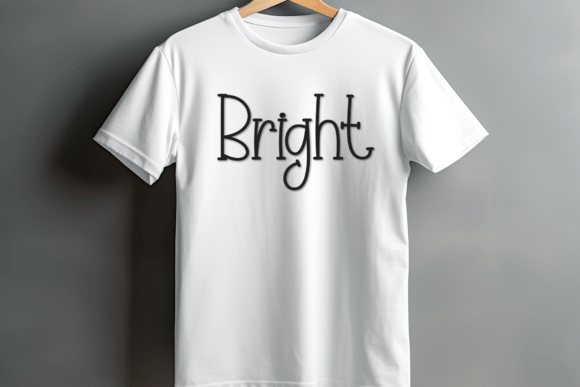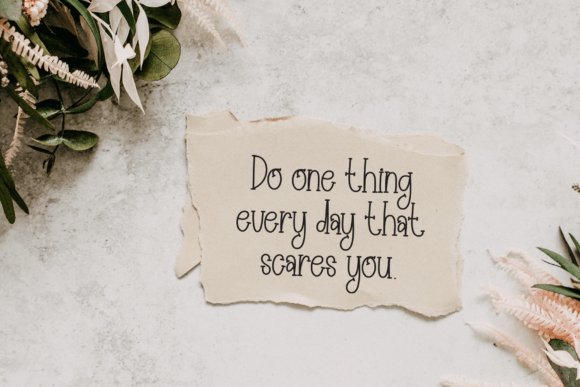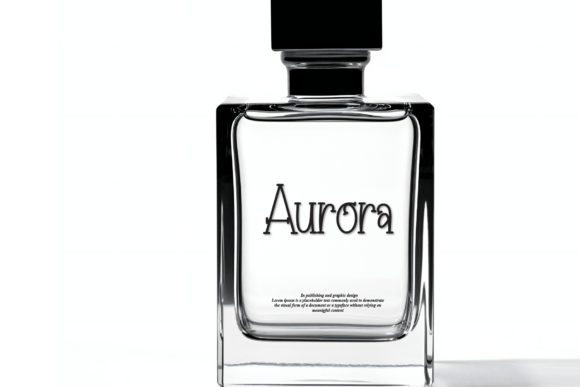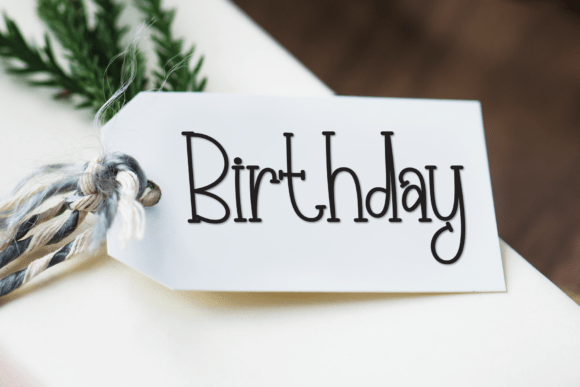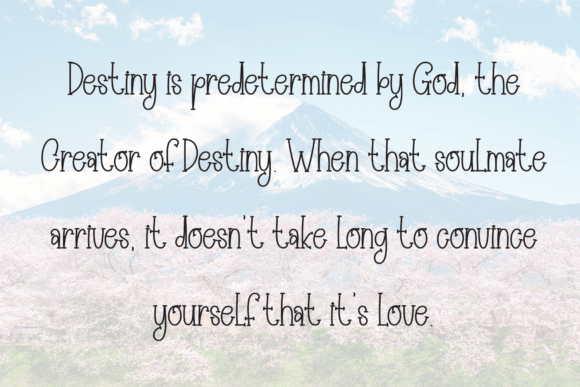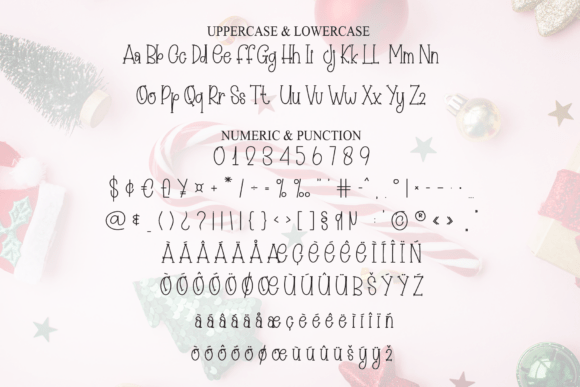
Candy Christmas Font: The Perfect Addition to Your Creative Designs
Are you looking for a font that can add a touch of playfulness and affection to your designs? Look no further than the Candy Christmas Font! This charmingly playful handwritten display font is perfect for designers and crafters who want to infuse their work with a gentle and loving vibe.
What is Candy Christmas Font?
The Candy Christmas Font is a unique and captivating font that is designed to bring a sense of joy and festivity to your creative projects. Its playful and handwritten style makes it perfect for a wide range of applications, from wedding invitations and heartfelt notes to artwork and crafts.
Key Features of Candy Christmas Font
- Playful and Handwritten Style: The Candy Christmas Font has a charmingly playful and handwritten style that exudes a gentle and affectionate vibe.
- Perfect for Creative Designs: This font is perfect for adding a delightful twist to your creative designs, whether it’s for wedding invites, heartfelt notes, or any artwork that calls for a friendly flourish.
- Ebullient and Fun: The Candy Christmas Font effortlessly infuses an element of ebullience and fun into your designs, making it perfect for projects that require a playful touch.
- Versatile: This font can be used for a wide range of applications, from digital designs to print materials.
Why Choose Candy Christmas Font?
There are many reasons why you should choose the Candy Christmas Font for your creative projects. Here are a few:
- Unique and Eye-Catching: The Candy Christmas Font is a unique and eye-catching font that will make your designs stand out from the crowd.
- Easy to Read: Despite its playful style, the Candy Christmas Font is easy to read and understand, making it perfect for use in a wide range of applications.
- Customizable: You can customize the font to fit your needs, making it perfect for use in a variety of creative projects.
How to Use Candy Christmas Font
- Use it for Headings: Use the Candy Christmas Font for headings and titles to add a playful touch to your designs.
The Candy Christmas Font is perfect for designers and crafters who want to add a touch of playfulness and affection to their work. Whether you’re creating wedding invitations, crafting heartfelt notes, or designing artwork, this font is sure to bring a smile to your face and a touch of magic to your creations.